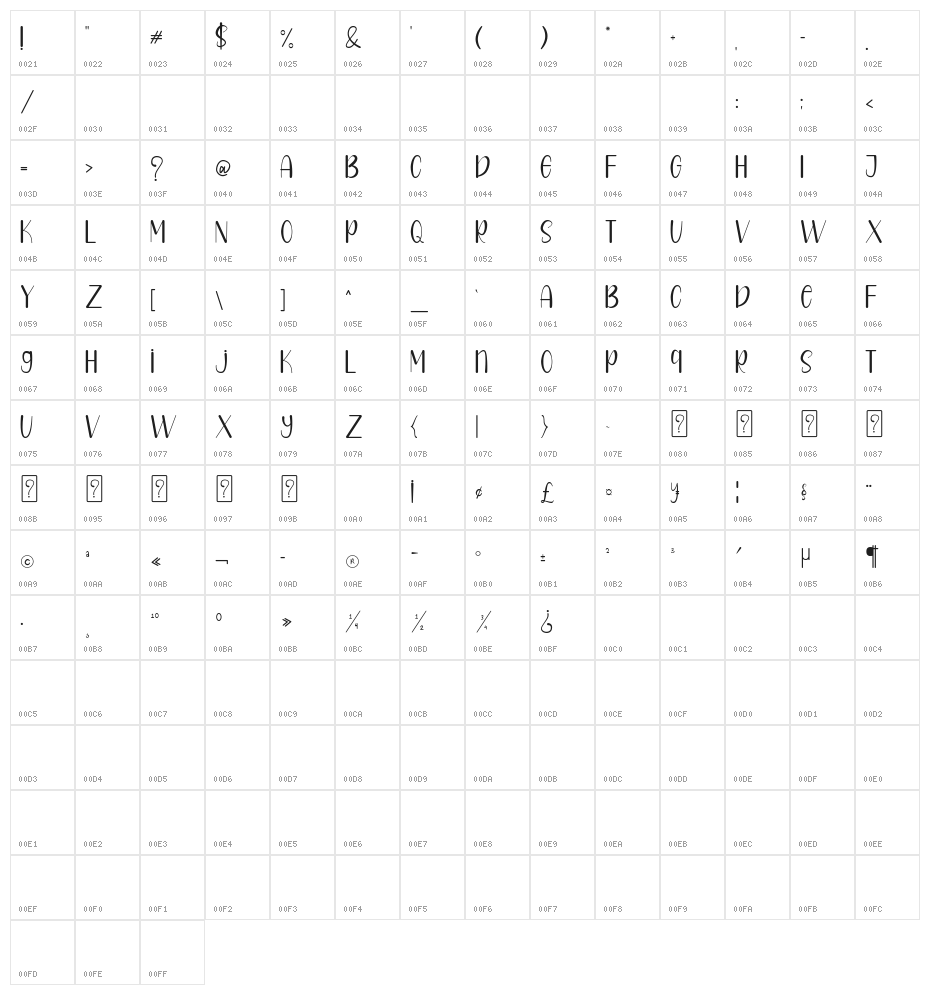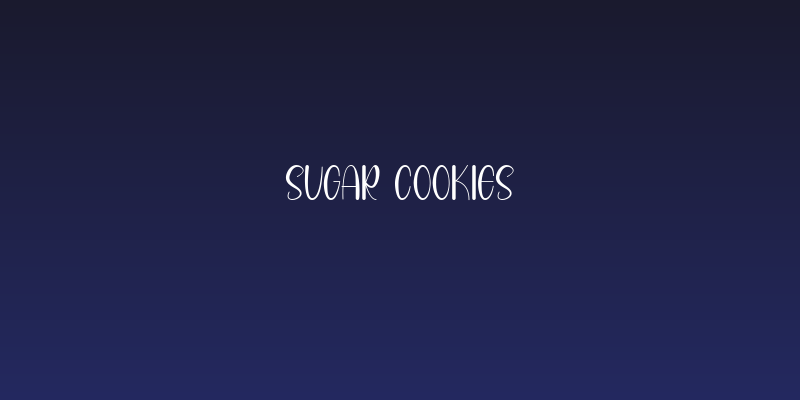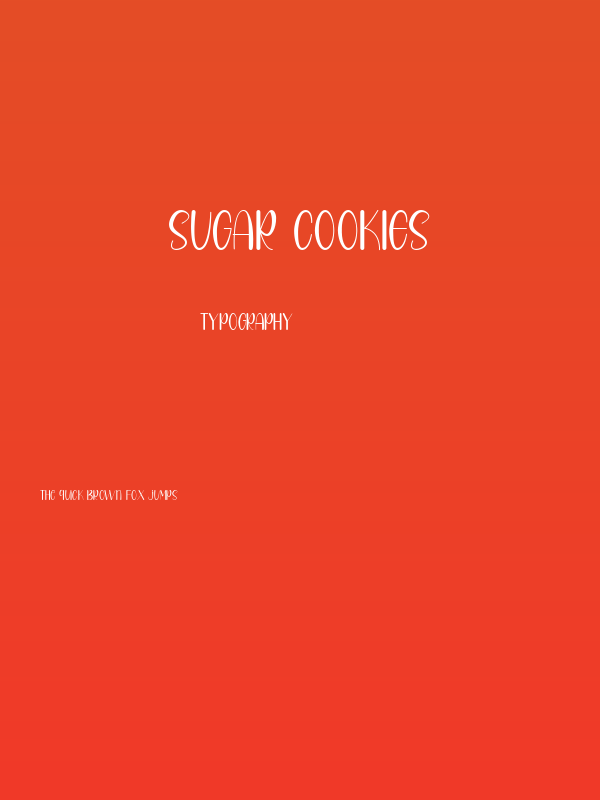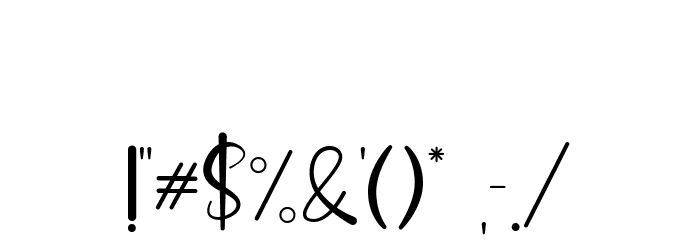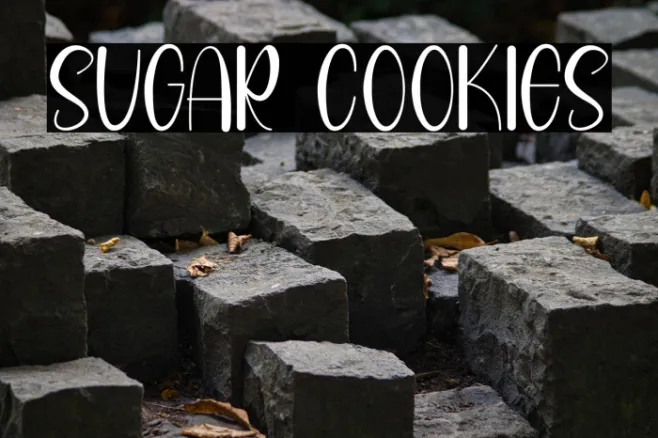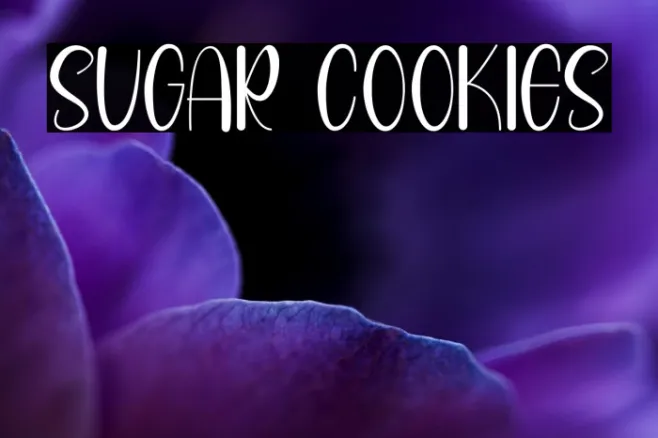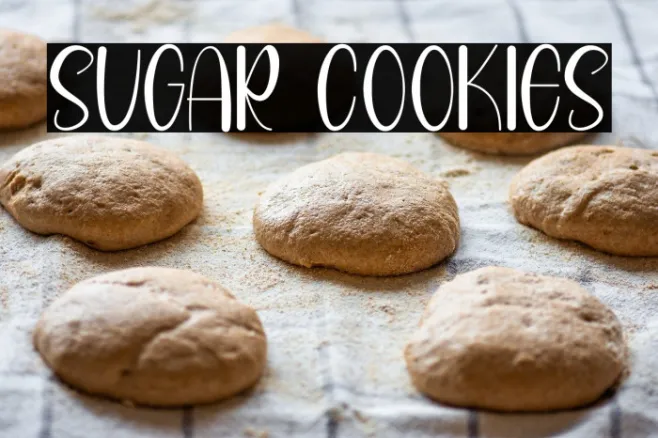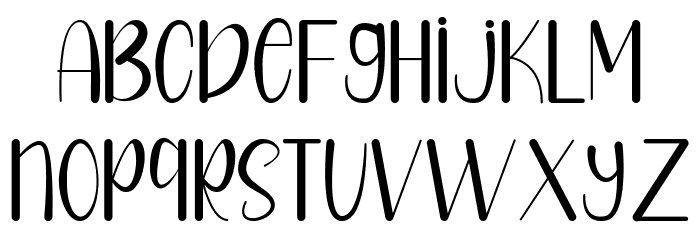
SUGAR COOKIES Font
SUGAR COOKIES Description
This font features a playful and whimsical design, characterized by its tall, narrow letters with a mix of straight and curved lines. The uppercase letters have a unique blend of rounded and angular elements, giving them a lively and dynamic appearance. The lowercase letters maintain a consistent style, complementing the uppercase with their own quirky flair. The numerals and special characters follow the same playful aesthetic, making the font suitable for creative and informal designs. The overall look is modern and fun, perfect for projects that require a touch of personality and charm.
| Overall Style | Playful, Modern |